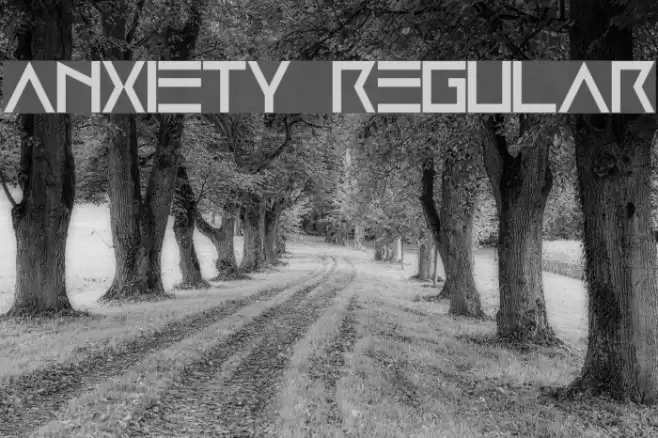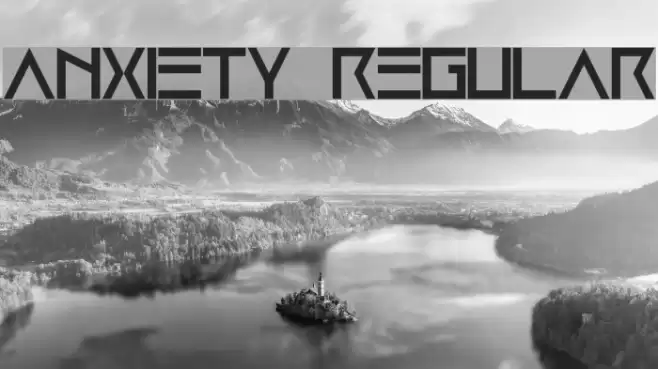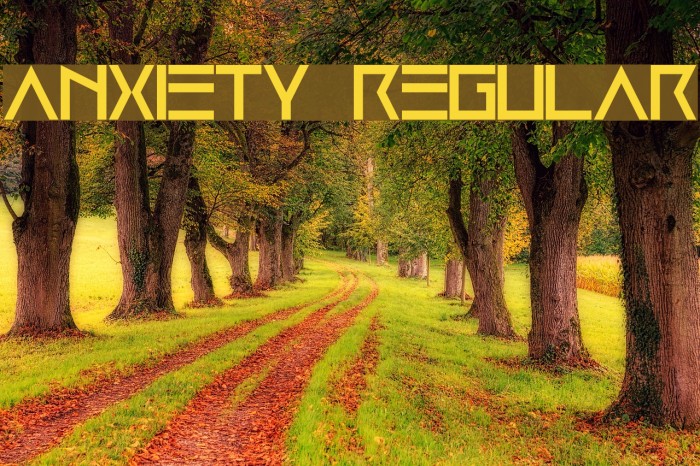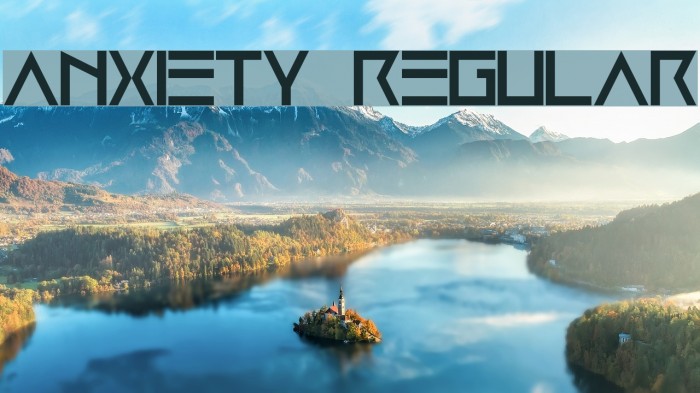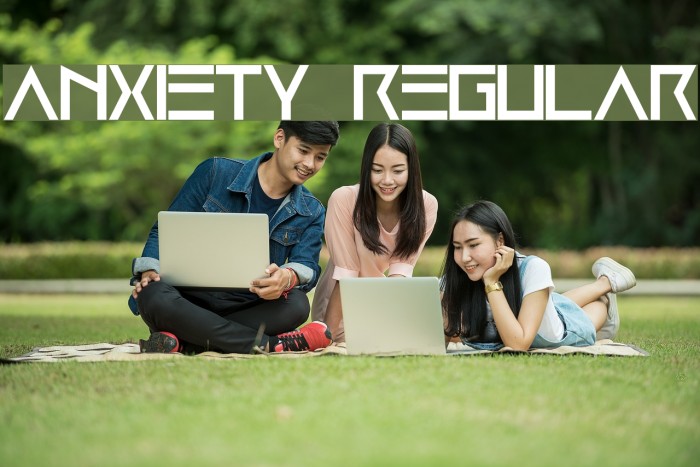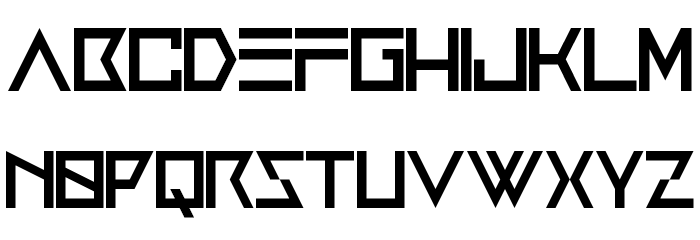
Anxiety Regular Font
Anxiety Regular Description
This font features a bold and geometric design with sharp angles and a futuristic aesthetic. The characters are constructed with straight lines and angular cuts, giving it a distinctive and edgy appearance. The uppercase letters are particularly striking, with a uniform height and width that create a cohesive look. The font lacks curves, emphasizing a modern and technical style. It is highly legible despite its unique design, making it suitable for attention-grabbing headlines or branding projects that require a contemporary and bold statement.
A bold, geometric font with sharp angles and a futuristic style from Uncategorized fonts.
- Proposed Projects: Ideal for technology branding, sci-fi themed designs, video game titles, and modern posters.